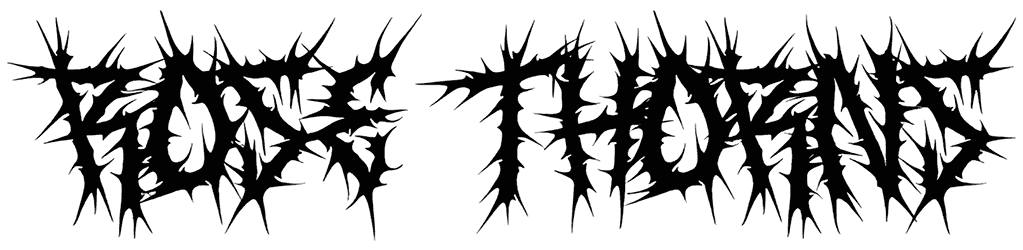
Rose Thorns Font
The Rose Thorns is an exciting font that remains in the viewer’s mind. This death metal font has a less-seen style and seems memorable.
The Rose Thorns font may help you in several cases, such as logos, posters, and prints on T-shirts, while it does not support lowercase letters and numbers. The extrusive thin thorns immediately catch your attention when you look at the letters. Moreover, the sharp edges create a frightening feeling, so give it a try now.